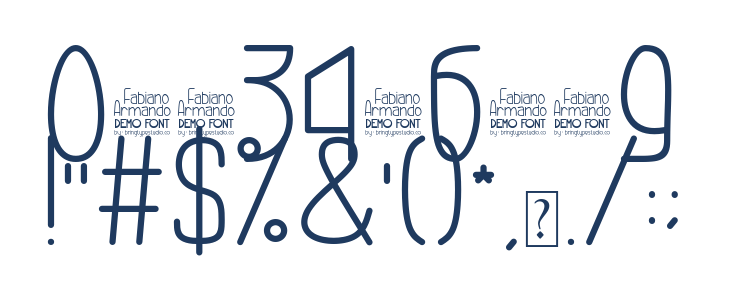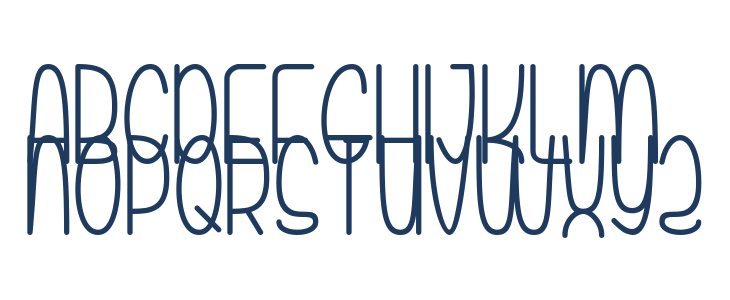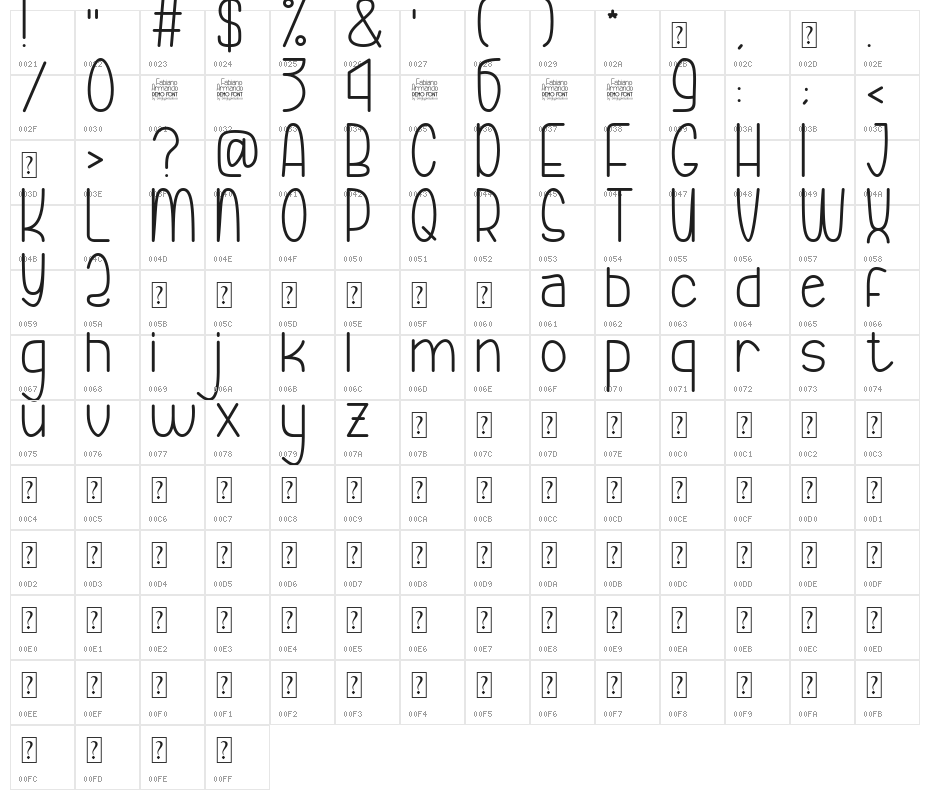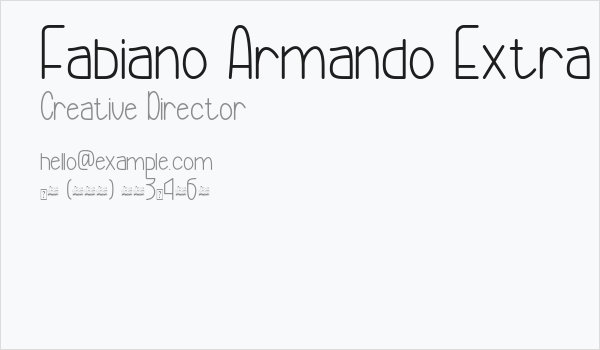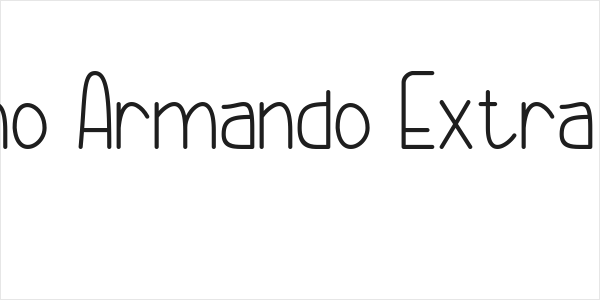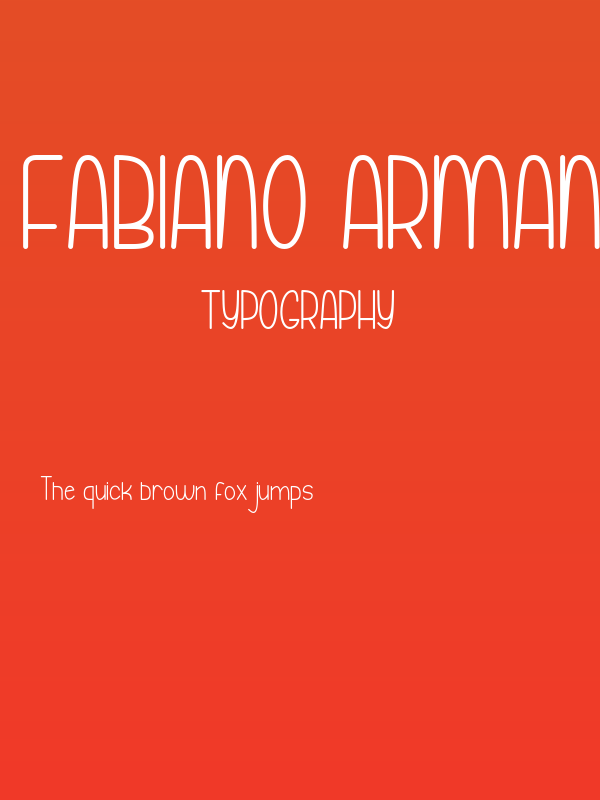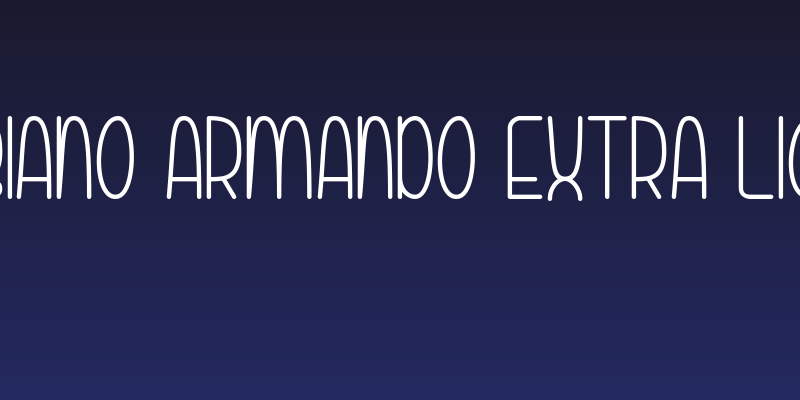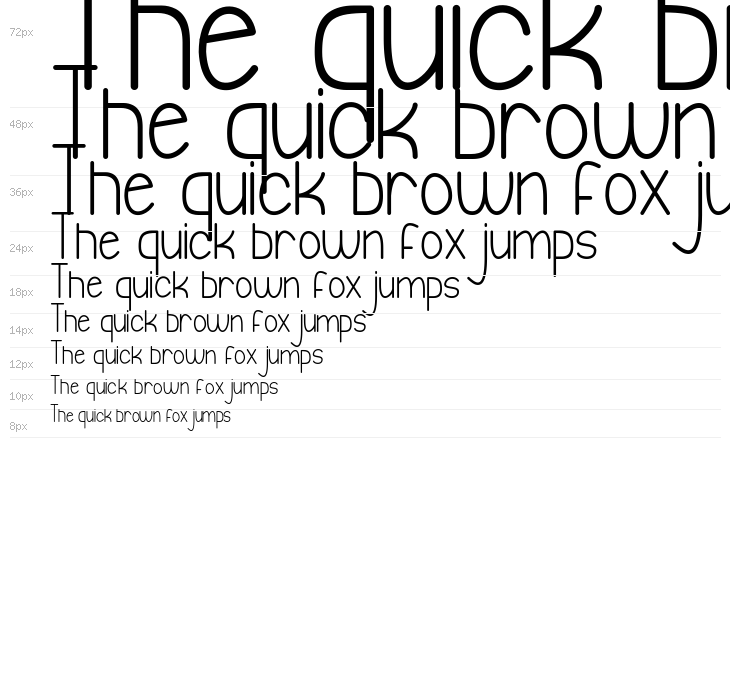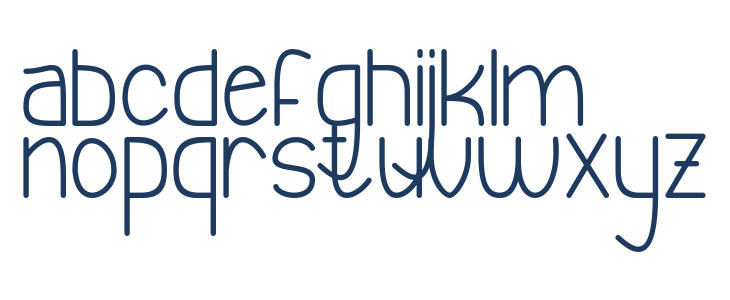
Fabiano Armando Extra Light Font
Fabiano Armando Extra Light Description
A tall, narrow sans-serif typeface with very thin strokes, rounded terminals, and a playful, modern appearance. The characters have a consistent stroke width and generous spacing, giving the font an airy and light feel.
| Overall Style | Modern, Playful, Minimalist |
| Use Case | Headlines, Display text, Posters, Branding |
| Proposed Projects | ChildrenΓ’β¬β’s books, posters, invitations, branding for creative businesses, packaging, digital interfaces. |